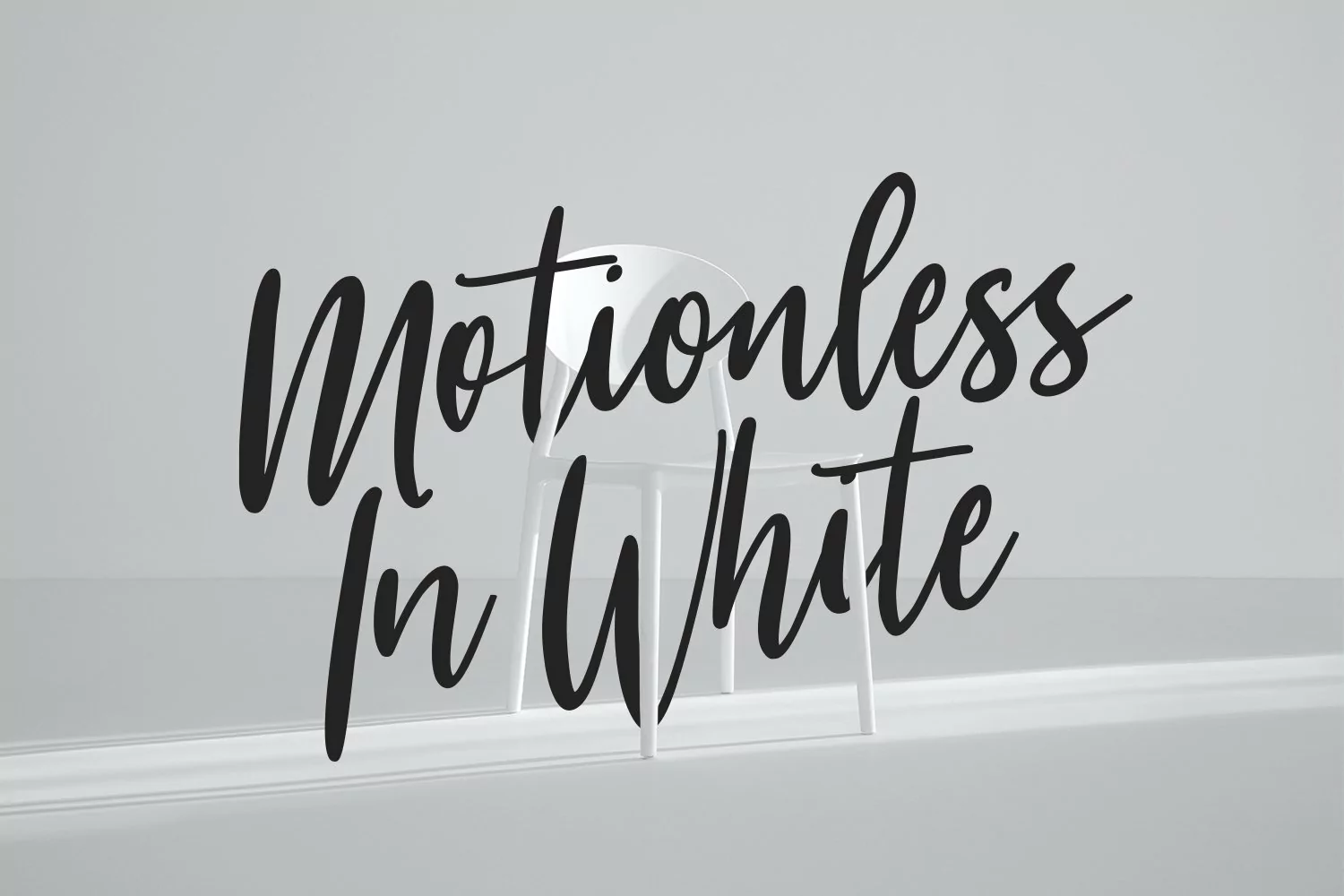
Koolkids is casual script font, with bold stroke, slanted and fun character. It has Opentype features ligatures of character, To give you an extra creative work. Koolkids font support multilingual more than 100+ language. This font is good for logo design, Social media, Movie Titles, Books Titles, a short text even a long text letter and good for your secondary text font with sans or serif. Make a stunning work with Koolkids font.
Koolkids